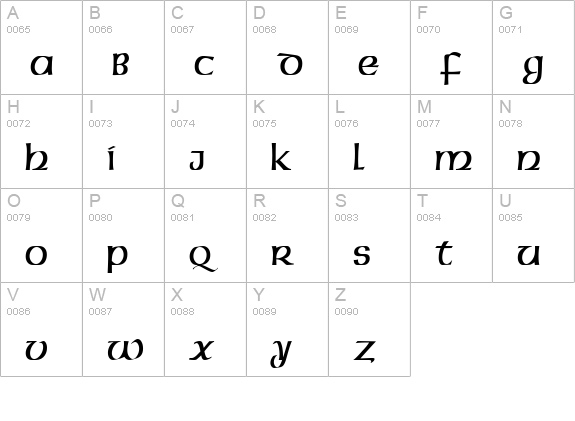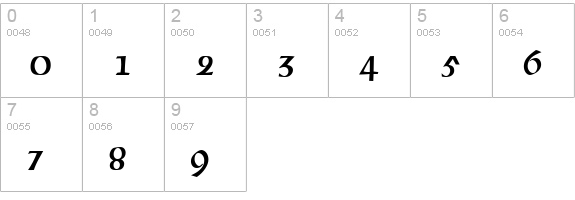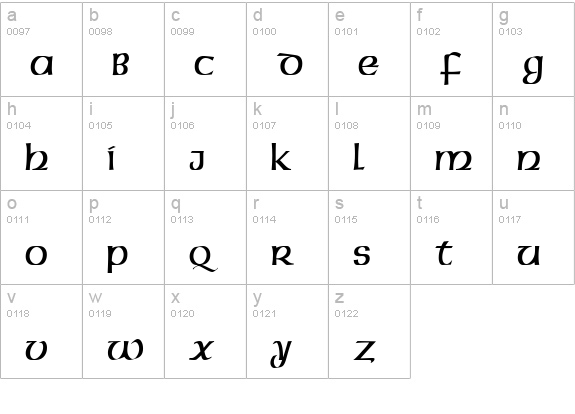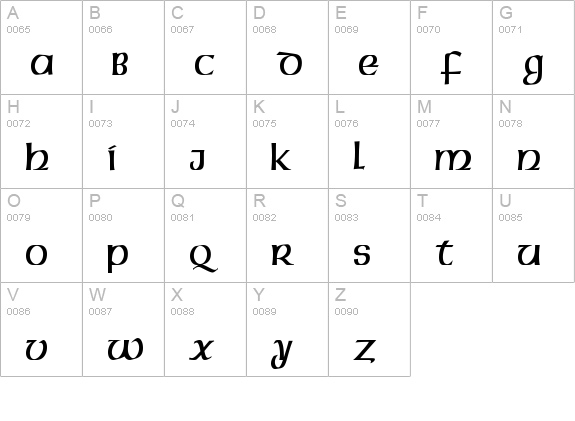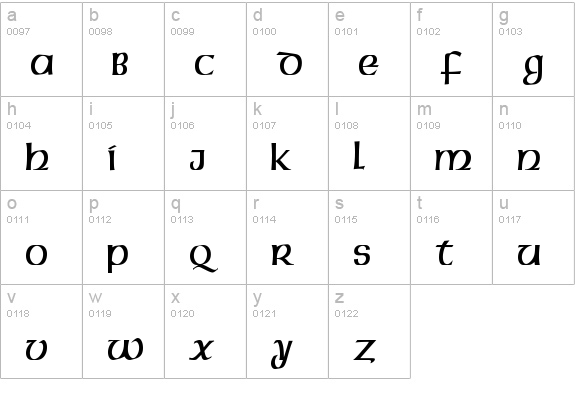
CelticCondensed Normal Font Details
CelticCondensed Normal is the standard, neutral variant in the CelticCondensed typeface family \xE2\x80\x94 well suited to general body text, paragraphs, and standard typographic work.
CelticCondensed Normal font is a beautifully crafted typeface that exudes a sense of ancient Celtic elegance and charm. Its intricate and distinct design captures the essence of traditional Celtic artistry, making it perfect for adding a touch of mystique to your projects. This font features clean lines and sharp edges that give it a modern twist while still maintaining a timeless appeal. Whether you're designing a logo, poster, or website, CelticCondensed Normal font will make a striking impression. Best of all, this font is available for free download at FontsMarket.com. So go ahead and enhance your designs with the enchanting CelticCondensed Normal font today!